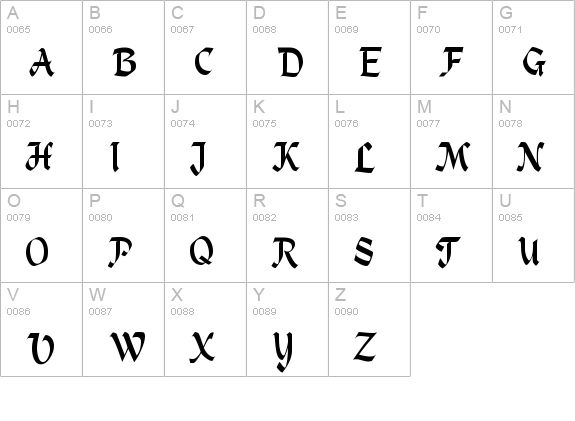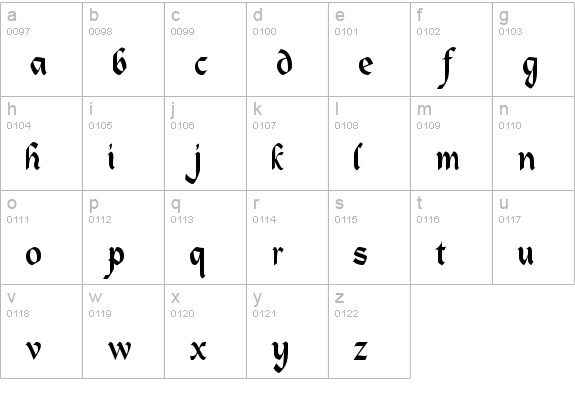
HelgarChancery Font Details
HelgarChancery is a stunningly elegant font that combines the timeless beauty of calligraphy with a modern twist. Its delicate letterforms gracefully dance across the page, exuding a sense of sophistication and refinement. Each stroke is meticulously crafted, resulting in a harmonious balance between fluidity and precision. This font is perfect for adding a touch of elegance to any project, whether it be wedding invitations, formal presentations, or branding materials. Its versatility allows it to effortlessly adapt to any design concept, effortlessly elevating the visual impact of your work. The HelgarChancery font captures the essence of classic calligraphy while embracing contemporary design sensibilities. Its clean lines and subtle curves create a sense of harmony and balance, making it a truly timeless typeface that will never go out of style. One of the best things about HelgarChancery font is that it is free. Yes, you read that right. This stunning font is freely available to download at FontsMarket.com. Now you can add a touch of elegance to your projects without breaking the bank. So why wait? Download the HelgarChancery font today and let your creativity soar. Whether you're a professional designer or a casual enthusiast, this font is sure to become an invaluable addition to your typographic toolkit. Don't miss out on this opportunity to elevate your designs and make a lasting impression.